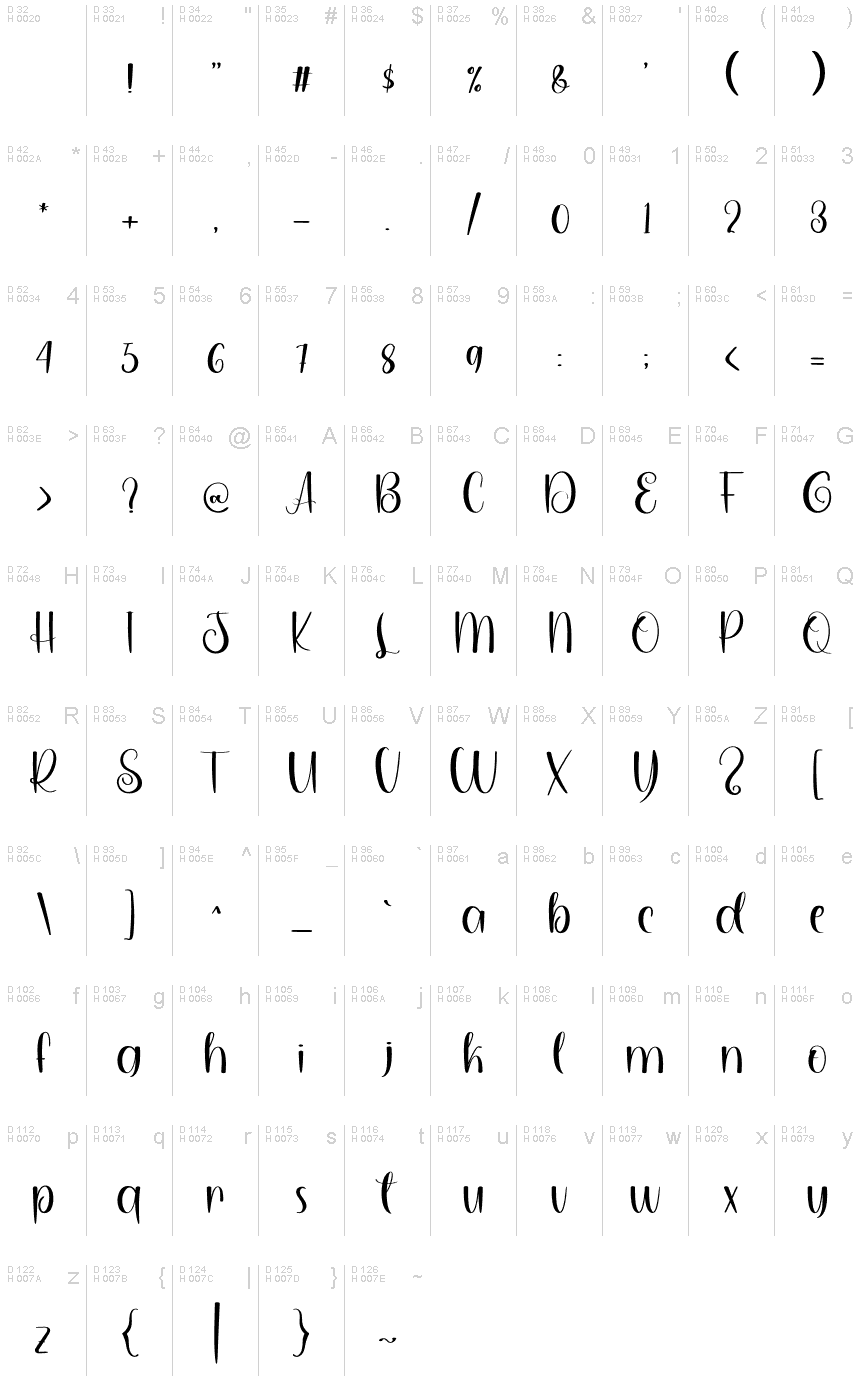
Winterland
Winterland, a calligraphic creation by PiPi Creative, embodies the elegance of hand-lettering with its semi-light weight and flowing lines. This font marries the charm of traditional calligraphy with a modern twist, making it an excellent choice for a variety of design projects. The fluid curves and subtle contrast in stroke thickness give Winterland a sense of grace and sophistication that can enhance wedding invitations, branding materials, or any project requiring a touch of handwritten beauty.
Its aesthetic appeal lies in its ability to convey warmth and personality while maintaining readability and finesse. Whether you're crafting an intimate personal note or looking to add artistic flair to commercial endeavors, Winterland offers versatility wrapped in a timeless style.